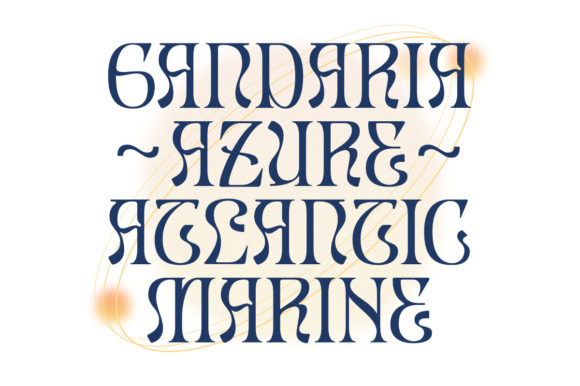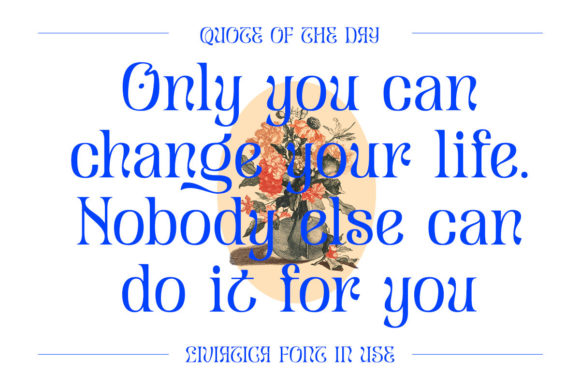
LIVIATICA Font
db-ku.com - Script & Handwritten -- Liviatica is a sophisticated serif with a unique letterform. This typeface has been made carefully to make sure of its premium quality and luxury feel. The letterform makes this typeface unique and stands out rather than the regular serif font.